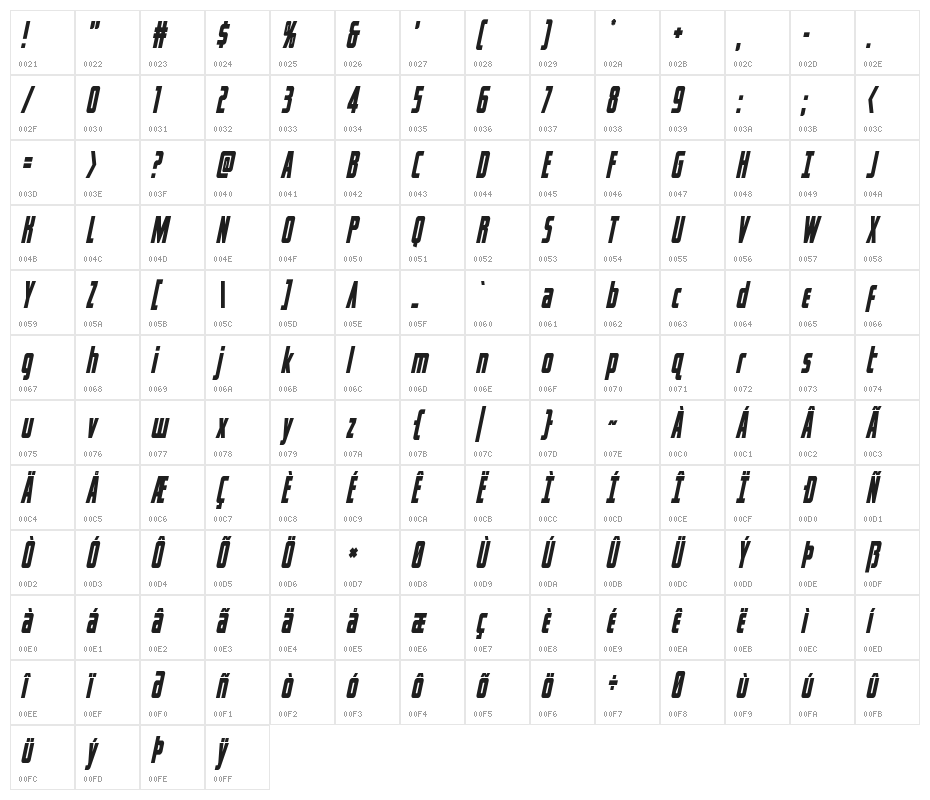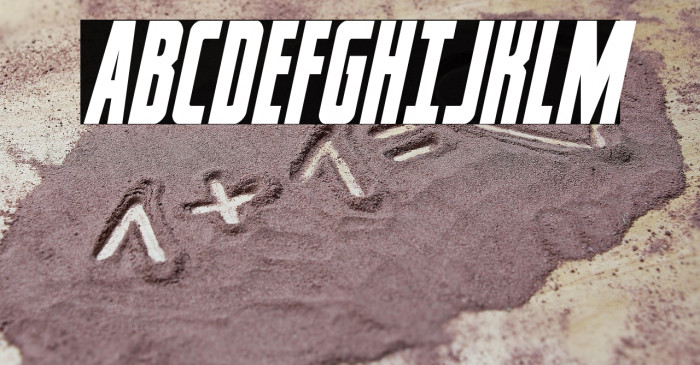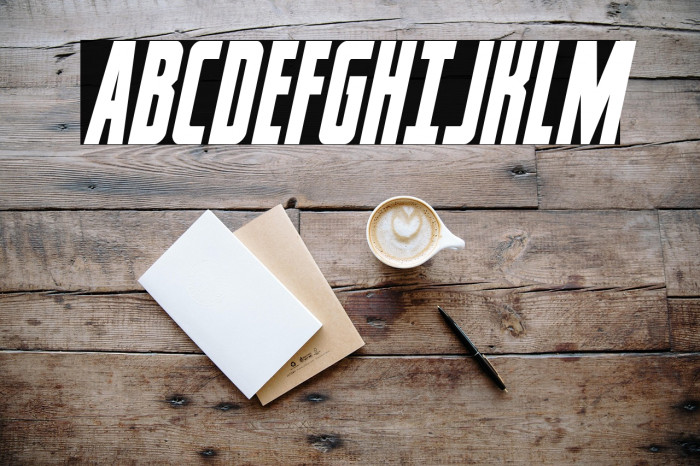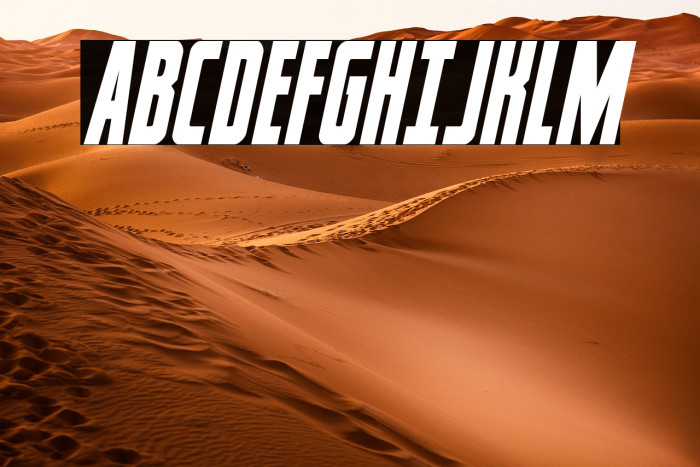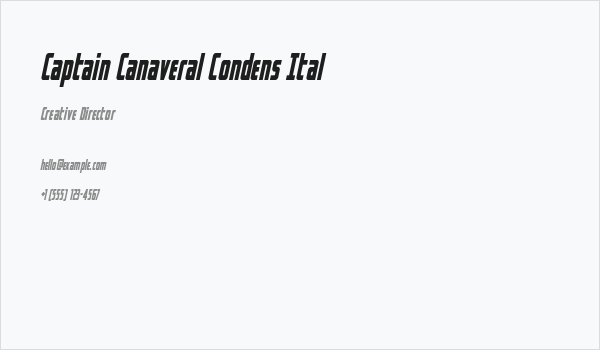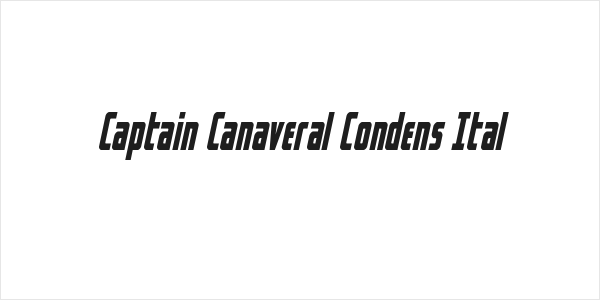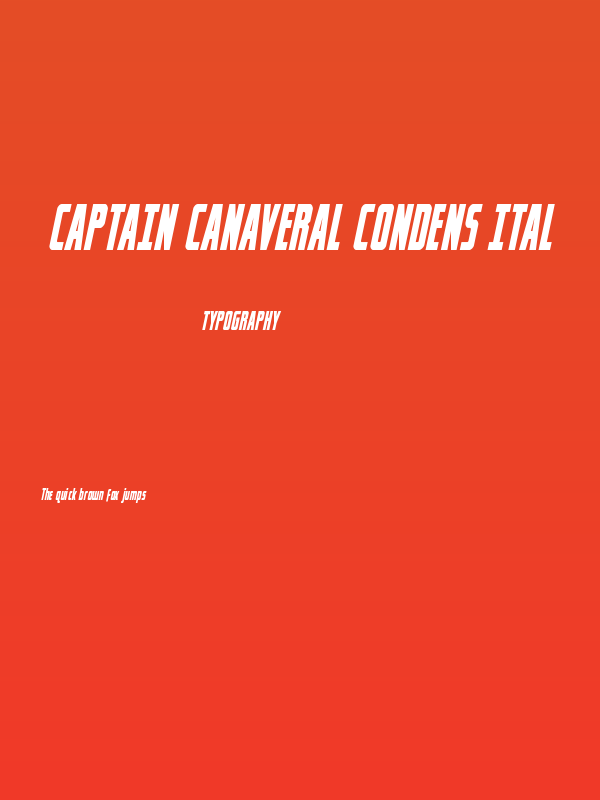
Captain Canaveral Condens Ital Font
Captain Canaveral Condens Ital Description
This font features a bold and dynamic style with a condensed and italicized form. The characters are tightly spaced, giving a sense of urgency and movement. The uppercase letters are tall and narrow, while the lowercase letters maintain a consistent height, enhancing readability. The numbers and special characters follow the same condensed and italicized style, ensuring a cohesive look across all elements. The strokes are thick and consistent, providing a strong visual impact. This font is well-suited for projects that require a modern and energetic appearance.
| Proposed Projects | Ideal for sports branding, dynamic posters, modern advertisements, and any project needing a bold, energetic typeface. |